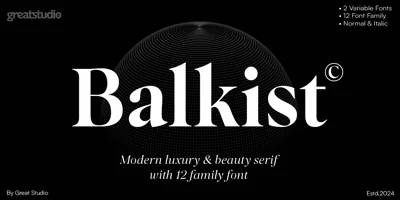
Balkist Font
Balkist Font is perfect for Eastern European cultural center branding, Balkan restaurant signage, folk festival promotional materials, traditional music venue logos, European heritage museum exhibits, cultural exchange program communications, ethnic food market marketing, and authentic regional celebration designs.
Balkist Font is exciting because it captures the rich cultural heritage of the Balkan Peninsula with its distinctively crafted letterforms that echo centuries of Slavic artistic tradition and the passionate spirit of Southeastern European communities. The typeface embodies the warmth of Balkan hospitality and the deep cultural pride of diverse ethnic traditions, creating an immediate sense of authentic heritage and community connection that resonates with those who appreciate the vibrant tapestry of Balkan culture.
Balkist Font family includes Light, Regular, Medium, Bold, and Traditional variants, complemented by Cyrillic script support and folk-inspired decorative elements, providing designers with culturally authentic typography tools for creating communications that honor Balkan heritage while engaging contemporary multicultural audiences.
Whether you're developing a Balkan cultural organization's brand identity, designing European heritage festival materials, or creating authentic regional dining experiences, Balkist Font offers unmatched cultural authenticity and regional appeal. This distinguished typeface perfectly balances traditional Balkan design influences with modern readability requirements, ensuring your communications connect with diverse audiences who value cultural preservation and authentic ethnic representation. The font's distinctive character variations and folk rhythm make it particularly effective for organizations that celebrate cultural diversity, traditional arts, and the kind of community spirit that defines Balkan social traditions. Cultural institutions consistently select Balkist Font when projects require typography that communicates cultural respect, regional pride, and the kind of authentic heritage celebration that builds bridges between traditional communities and contemporary multicultural society, making it indispensable for ethnic cultural branding, heritage festival marketing, and any application where respectful typography can honor the magnificent cultural legacy of the Balkans and celebrate the diverse traditions, languages, and artistic expressions that continue to enrich global culture through their passionate commitment to preserving ancestral wisdom while embracing modern opportunities for cultural exchange.